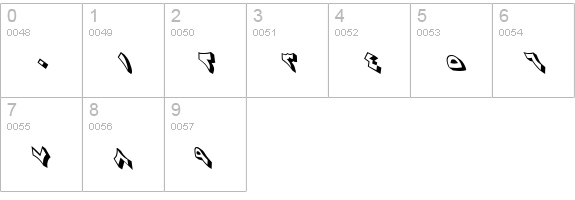
B Zaman Font Details
The B Zaman font is a beautifully crafted typeface that exudes elegance and sophistication. With its sleek lines and modern design, this font is perfect for adding a touch of style to any project. Whether you're designing a website, creating a logo, or working on a print project, the B Zaman font is sure to make a bold statement. Best of all, this stunning font is available for free download at FontsMarket.com. Simply visit the website and start using this amazing font in your projects today. Don't miss out on the opportunity to enhance your designs with the B Zaman font - download it now and take your creativity to the next level.